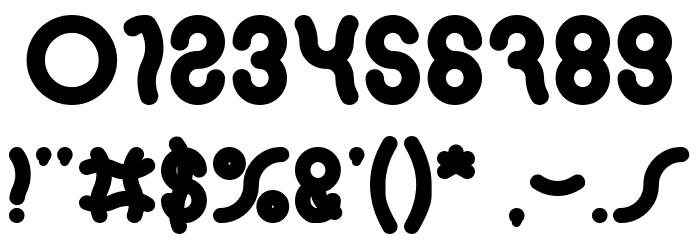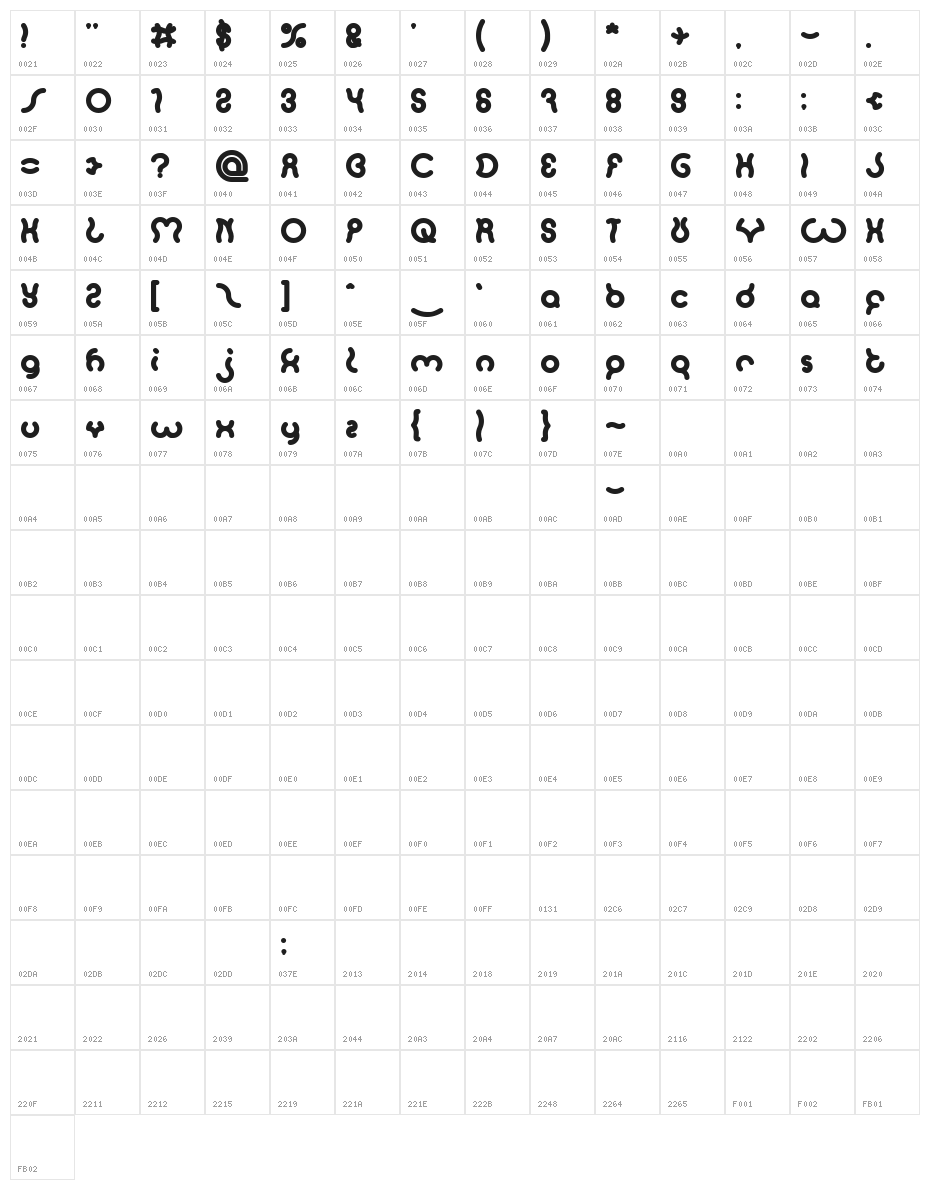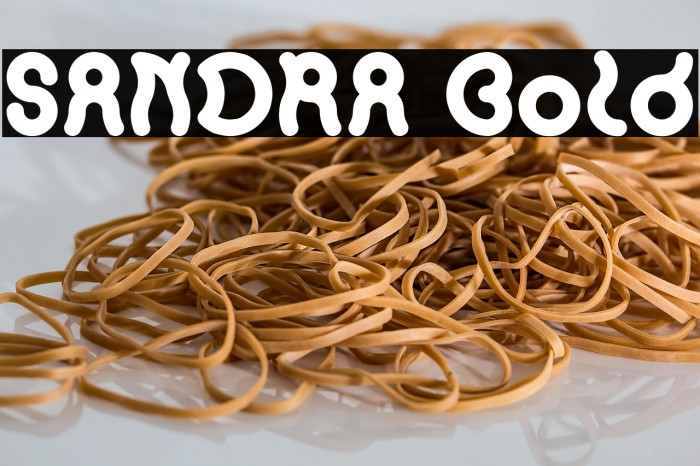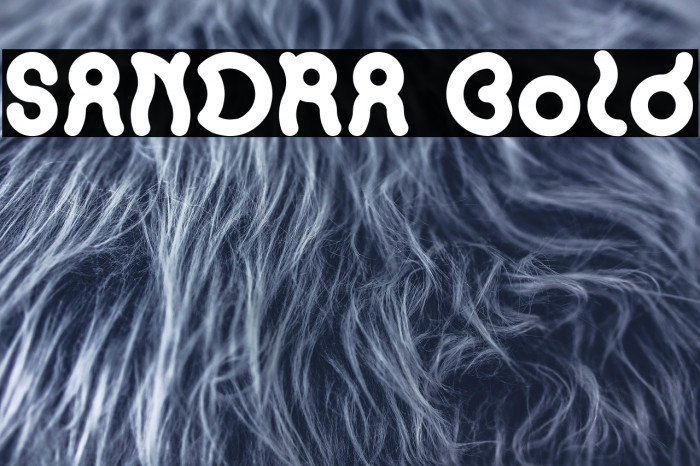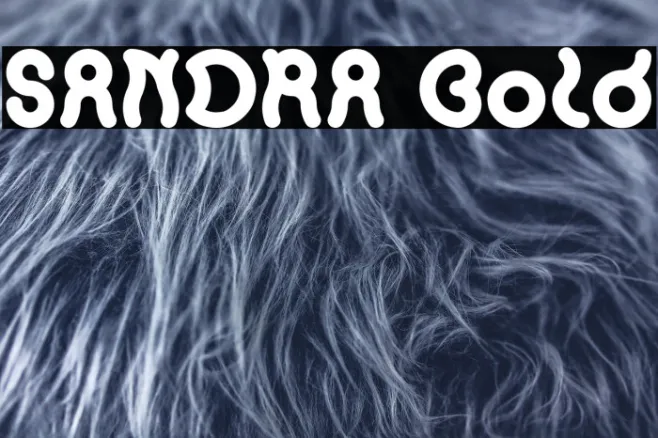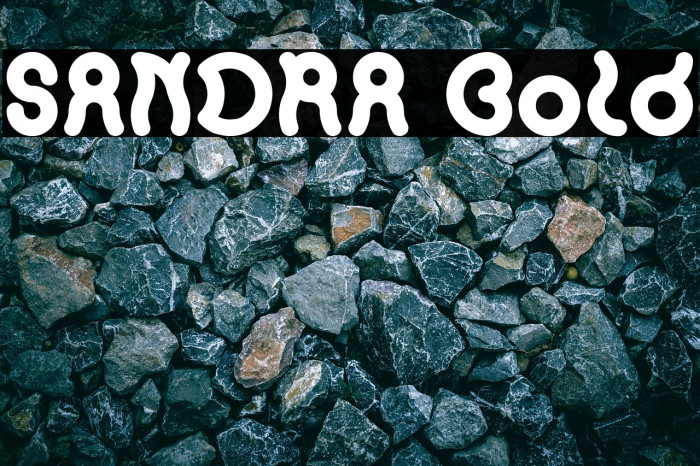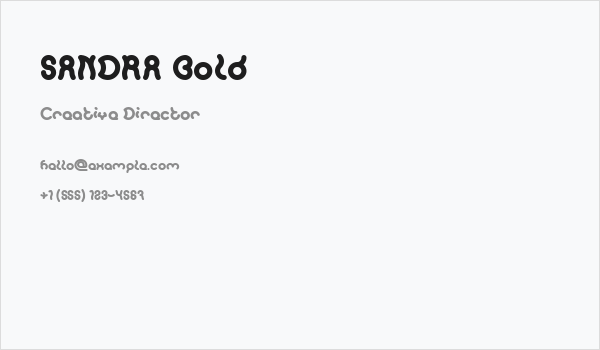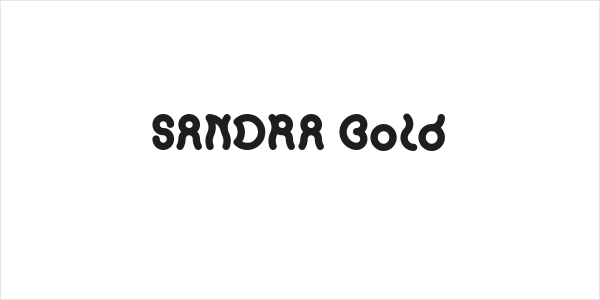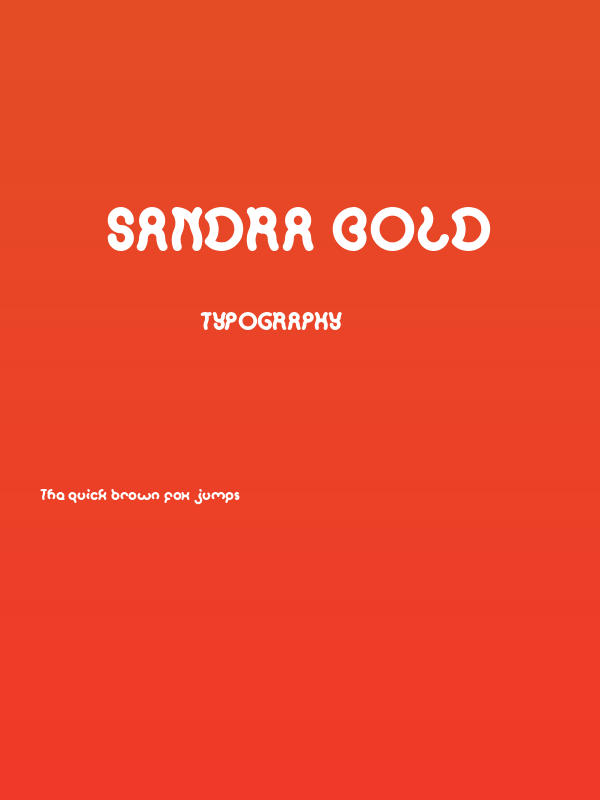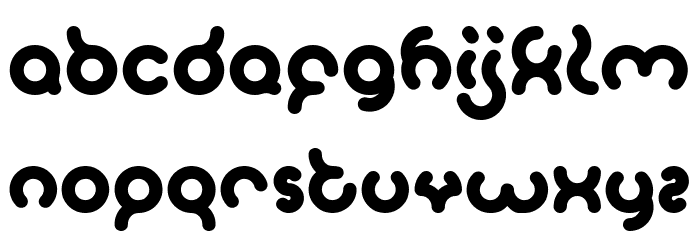
SANDRA Bold Font
SANDRA Bold Description
This font features a bold, playful design with rounded, bubbly characters that create a sense of fun and whimsy. The letters are thick and have a consistent stroke width, giving them a strong presence. The overall style is decorative, with each character having a unique, almost cartoonish flair. The numbers and special characters maintain the same playful aesthetic, making the font suitable for creative and informal applications. The spacing between characters is normal, ensuring readability while maintaining the font's distinctive style.
| Overall Style | Playful, Whimsical, Decorative |